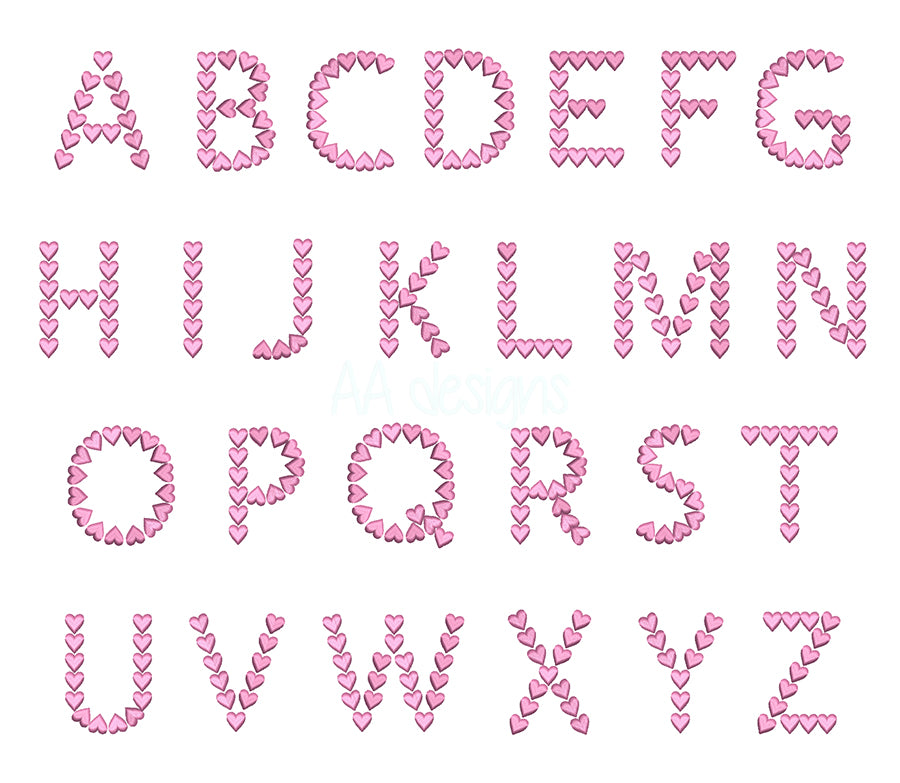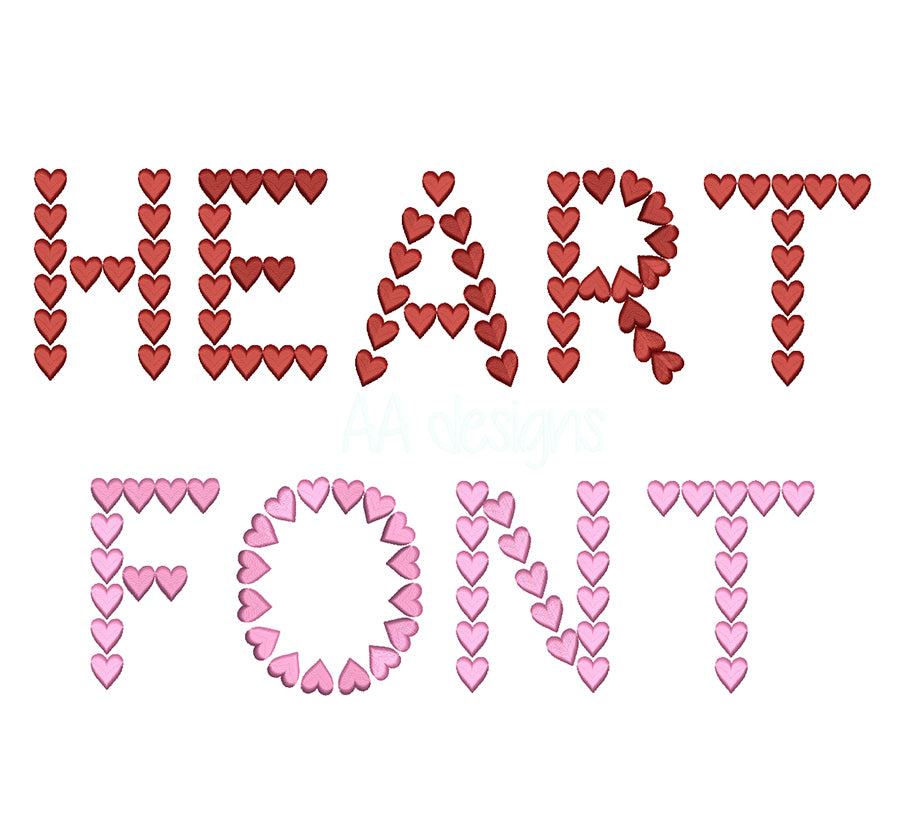
Heart Embroidery Font
Stitch a little love into everything with the Heart Embroidery Font — a sweet, romantic machine embroidery font where charming heart accents are woven into every letter for an irresistibly lovable look. ❤️✨🧵
Perfect for Valentine's Day gifts, wedding and anniversary keepsakes, baby shower items, Mother's Day presents, and any project that deserves a heartfelt personal touch. This font brings warmth and love to tote bags, apparel, home décor, and so much more.
- Includes full alphabet (A–Z)
- Heart accent details — best stitched at small to medium sizes for delicate results
- Clean, detailed stitching that makes every heart pop beautifully